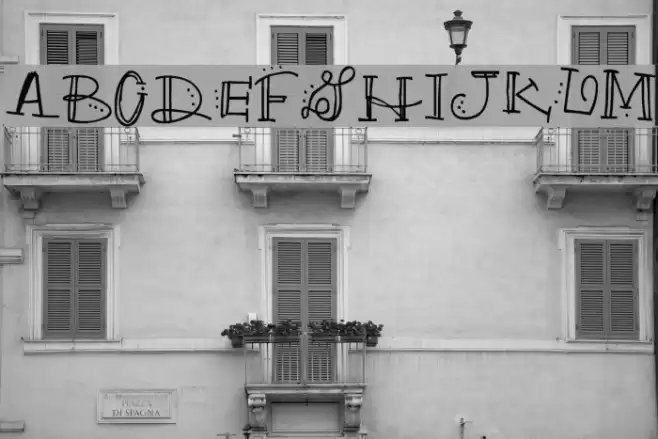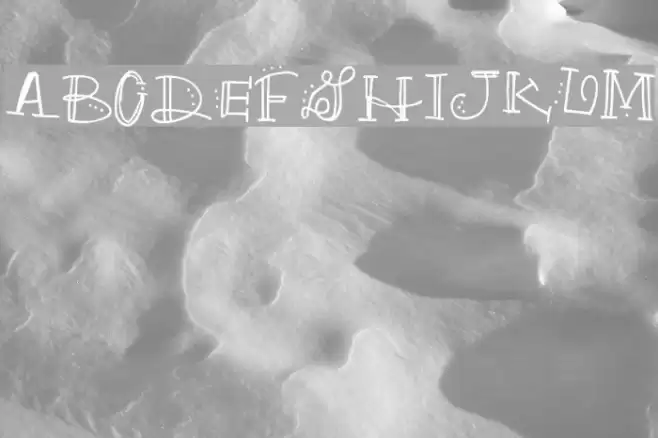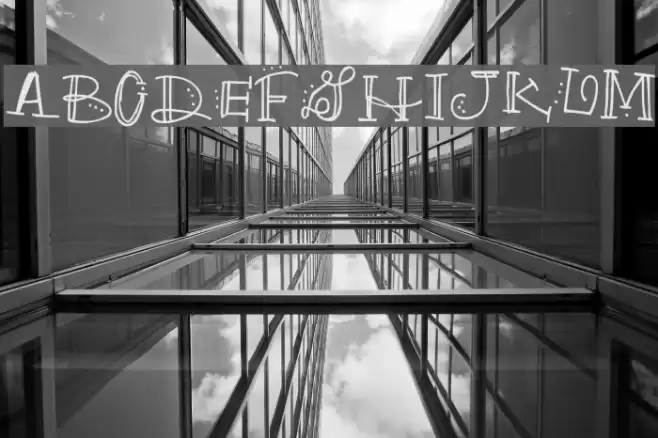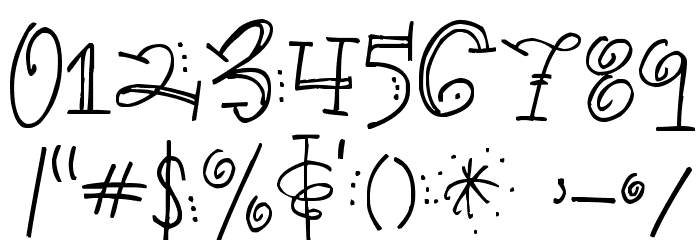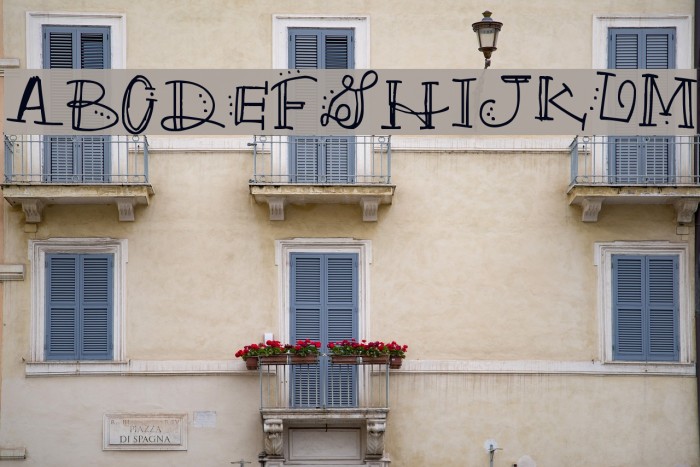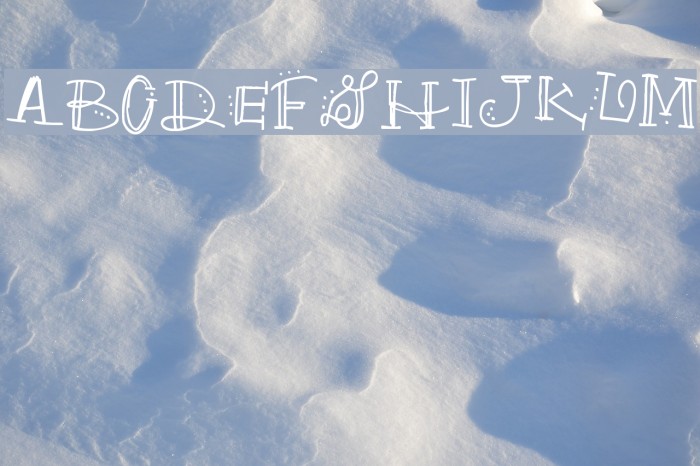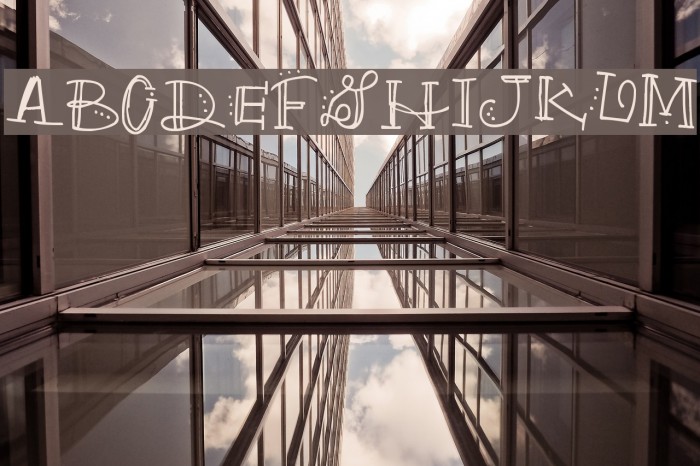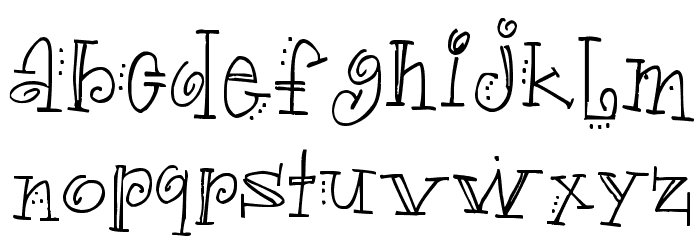
Truckle Font
Truckle Description
This whimsical and playful font features a unique blend of decorative elements and quirky details. Each character is adorned with dots and swirls, creating a lively and dynamic appearance. The uppercase letters exhibit a bold and artistic flair, while the lowercase letters maintain a consistent style with added embellishments. Numbers and special characters follow the same creative theme, making the font suitable for eye-catching designs. The overall style is both fun and imaginative, perfect for projects that require a touch of creativity and individuality.
A whimsical, decorative font with playful dots and swirls from Round fonts.
- Proposed Projects: Ideal for children's books, playful branding, party invitations, and creative posters.